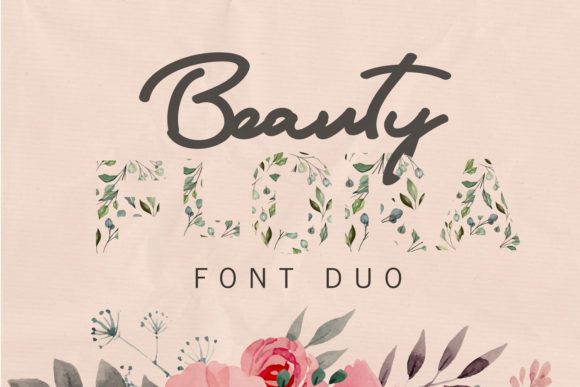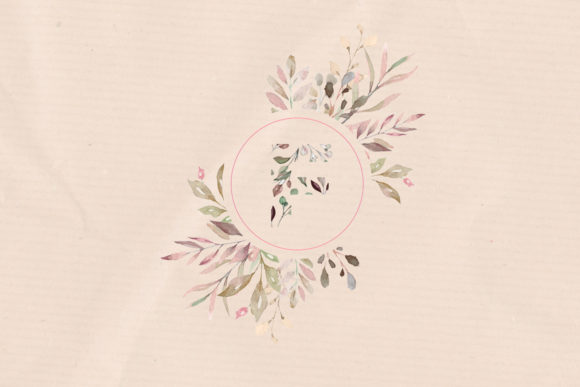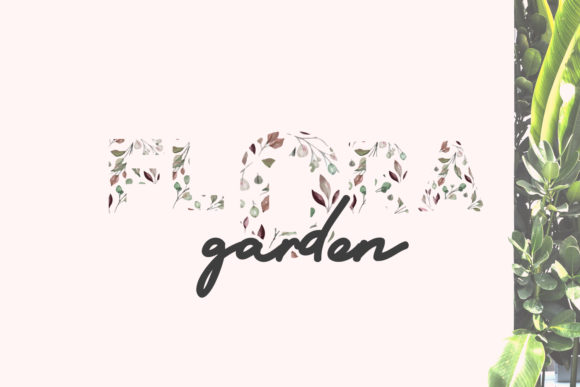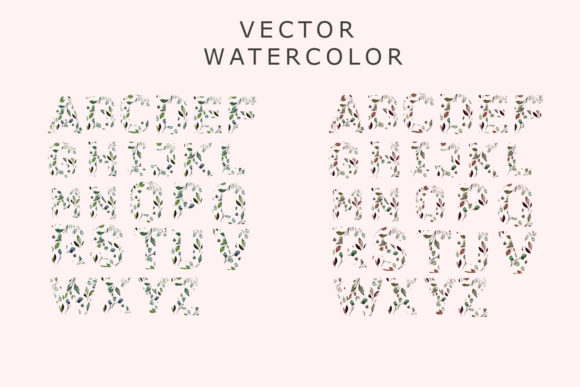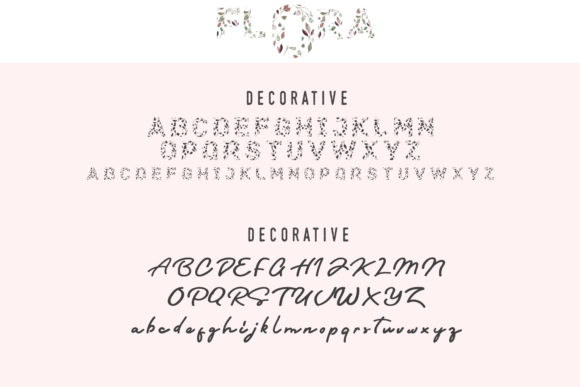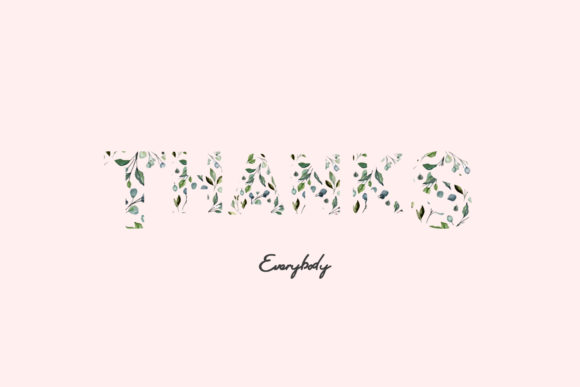
HomeScript FontsFlora Duo Font Script Fonts Flora Duo Font FacebookXPinterestWhatsApp Flora Duo Font Poster 2 Flora Duo Font Poster 3 Flora Duo Font Poster 4 Flora Duo Font Poster 5 Flora Duo Font Poster 6 About Flora Duo Font Flora is an amazing font duo that is inspired by the beauty of nature. Fall in love with its organic charm! DOWNLOAD ON CREATIVE FABRICAThis font is sold and delivered by Creative Fabrica. Font Canyon may earn a commission if you buy through this link. People also explored Anisha Font Silence King Font Love Girl Font Offaly Font Yellow Fish Font Funky Baby Font Swissn Font Annabelle Font Play Brush Font 316 0 TagsFlora Duo Font Previous articleWheslayne Script FontNext articleColleen Philadelphia Font LEAVE A REPLY Cancel reply Comment: Please enter your comment! Name:* Please enter your name here Email:* You have entered an incorrect email address! Please enter your email address here Website: Save my name, email, and website in this browser for the next time I comment. Personal Use Free Winner Personal Use Free Read more about this font Hollow Personal Use Free Read more about this font Soulties Personal Use Free Read more about this font The Royal Personal Use Free Read more about this font BLOG Elegant Wedding Invitation Fonts – Handwritten & Script Fonts Elegant Wedding Invitation Fonts Your wedding day is one of the most important moments of your life, and every detail matters—including your invitation design. Our... Best Fonts for YouTube Videos: Make Your Thumbnails Stand Out 5 Fonts That Will Dominate Design Trends in 2026 How to Install and Use Fonts on Windows, macOS, and Web Projects